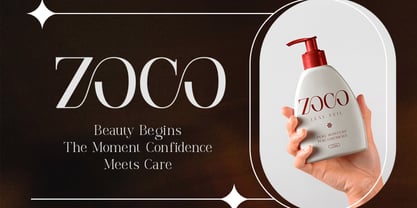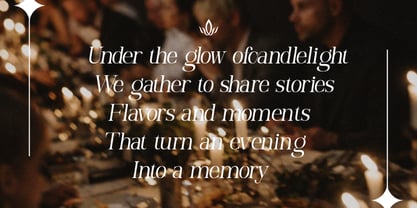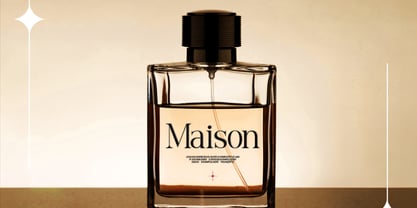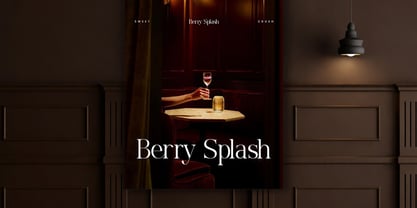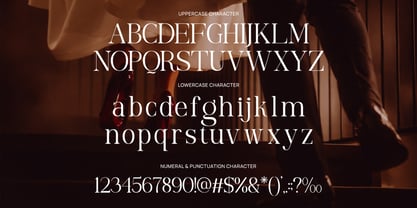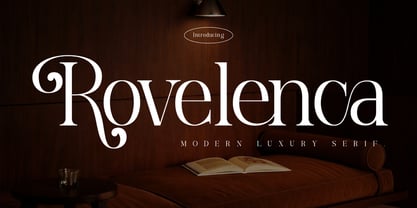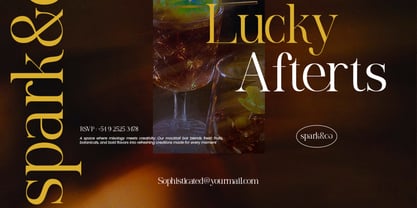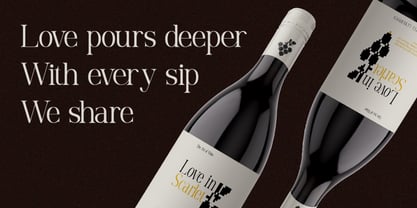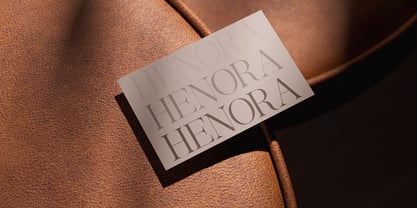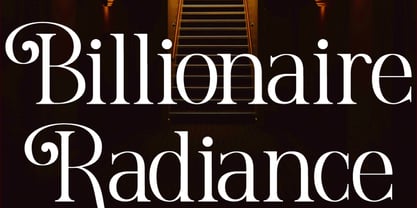
Rovelenca
Rovelenca Modern Luxury Serif showcases a refined serif typeface with elegant contrast, graceful curves, and distinctive high-end detailing. The font package includes uppercase, lowercase, numerals, and punctuation. Its sophisticated structure enhances readability while delivering a premium editorial and branding presence across both print and digital formats. Relevance and Use Cases is perfect for luxury branding, fashion editorials, high-end product packaging, premium logo design, beauty and cosmetic campaigns, wedding invitations, boutique branding, magazine layouts, hotel and hospitality visuals, and sophisticated marketing materials that require an elegant and timeless typographic identity.